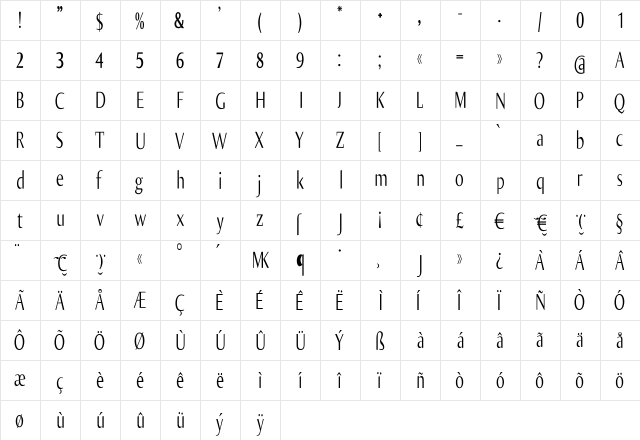
OliJoCondensed Regular Font Preview
OliJoCondensed Regular
Design Context for OliJoCondensed Typeface
OliJoCondensed is a composed and adaptable typeface that performs quietly and consistently across a wide range of design contexts. Its narrow stance lets it pack a punch even in space-constrained designs.